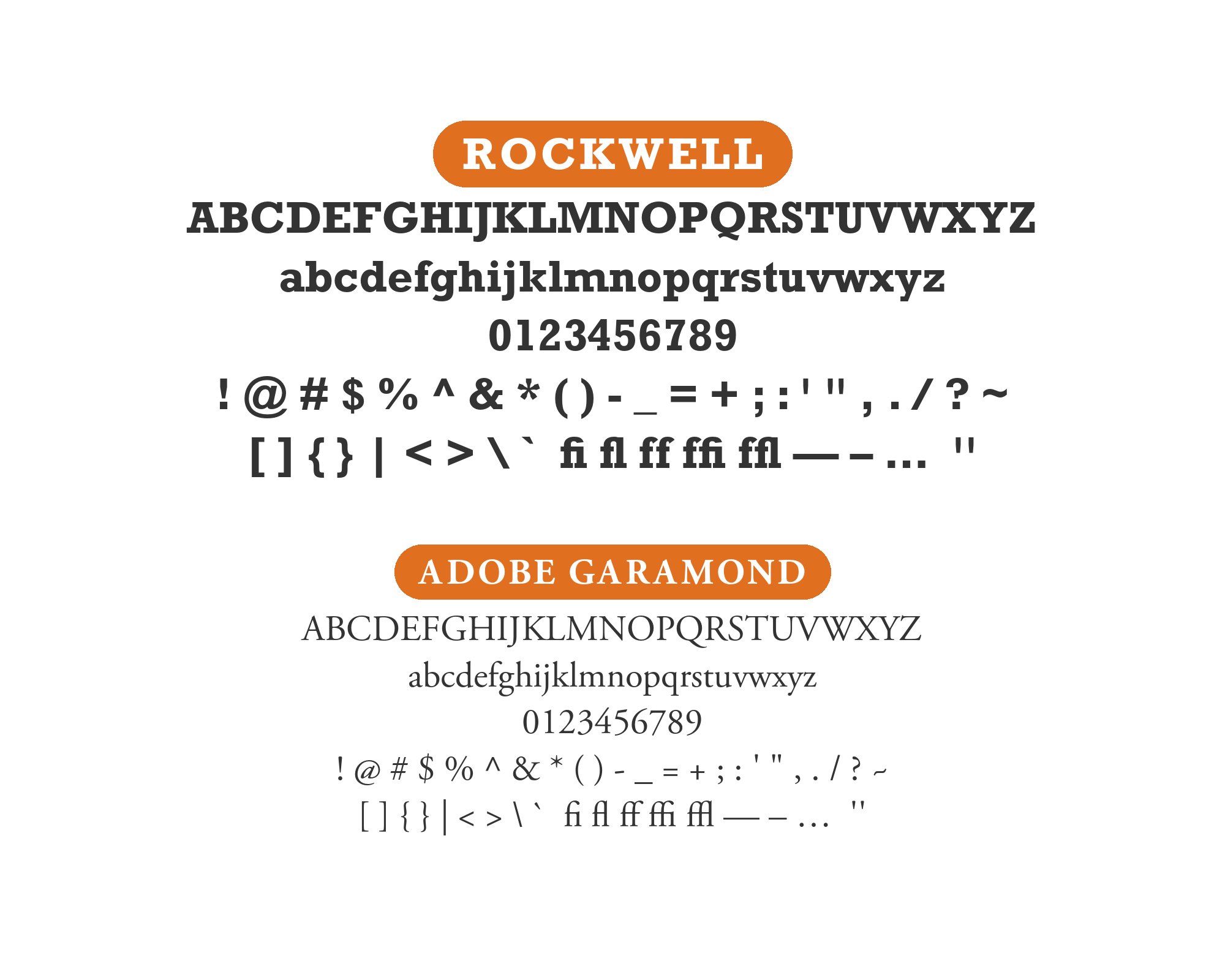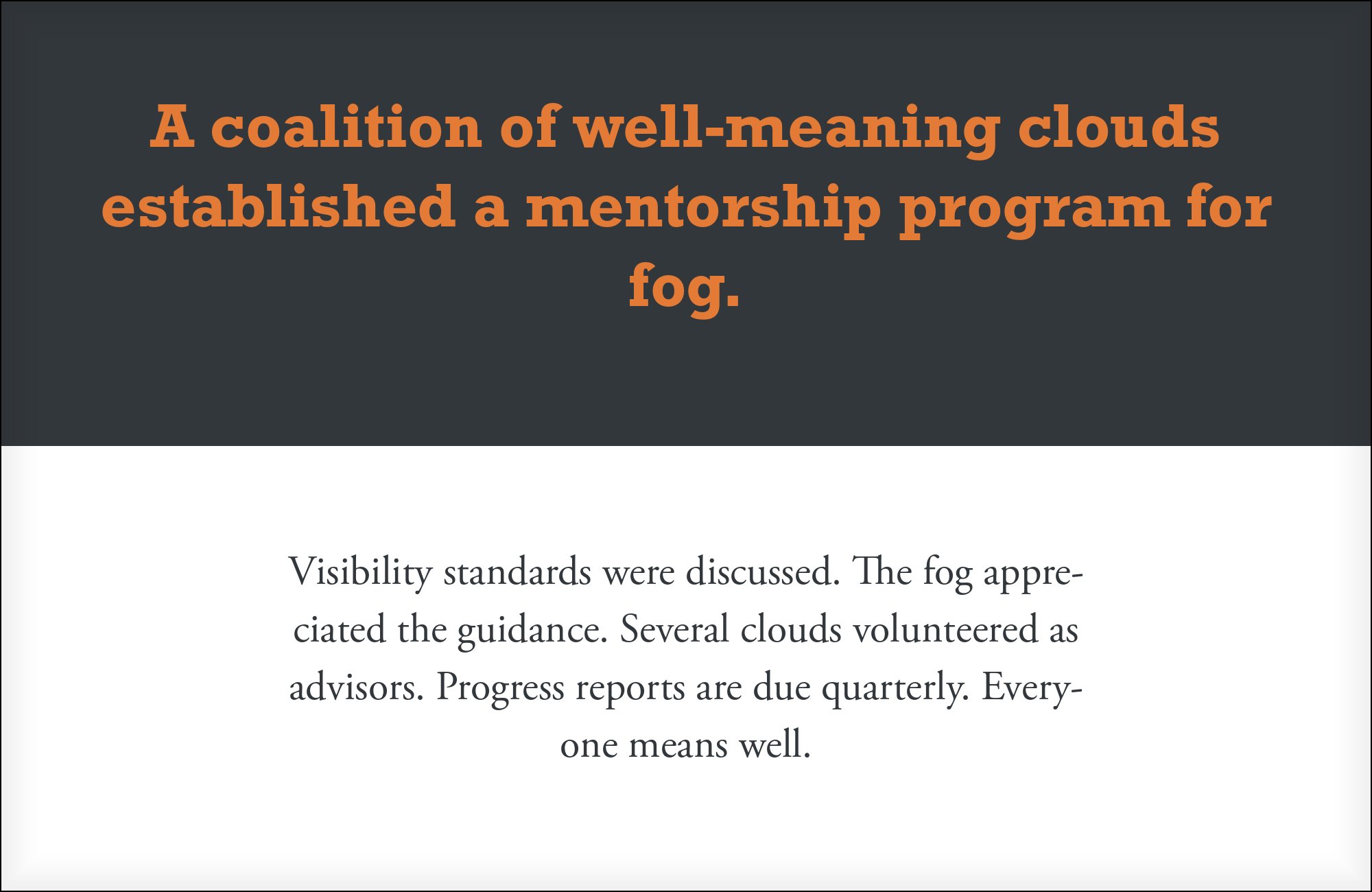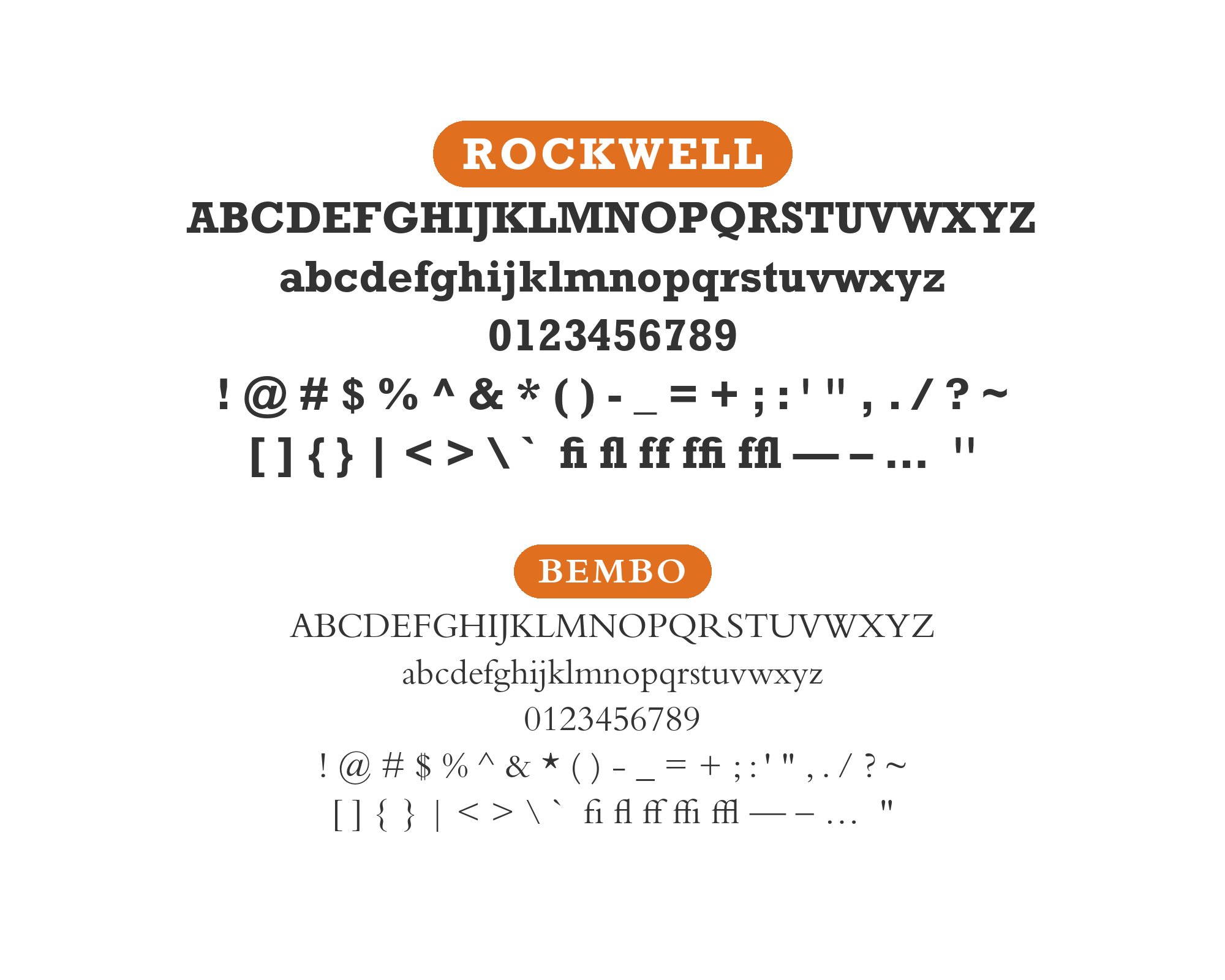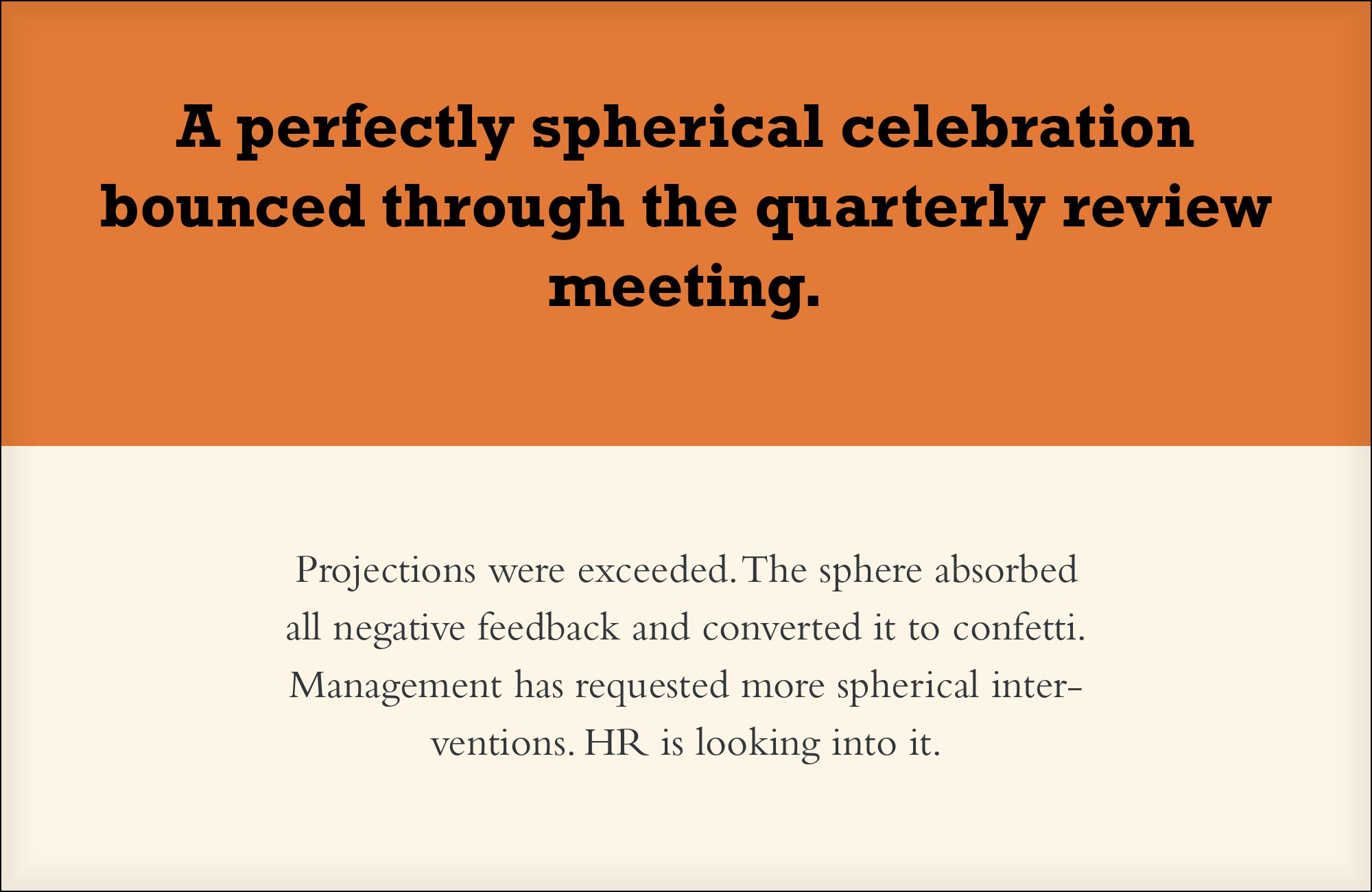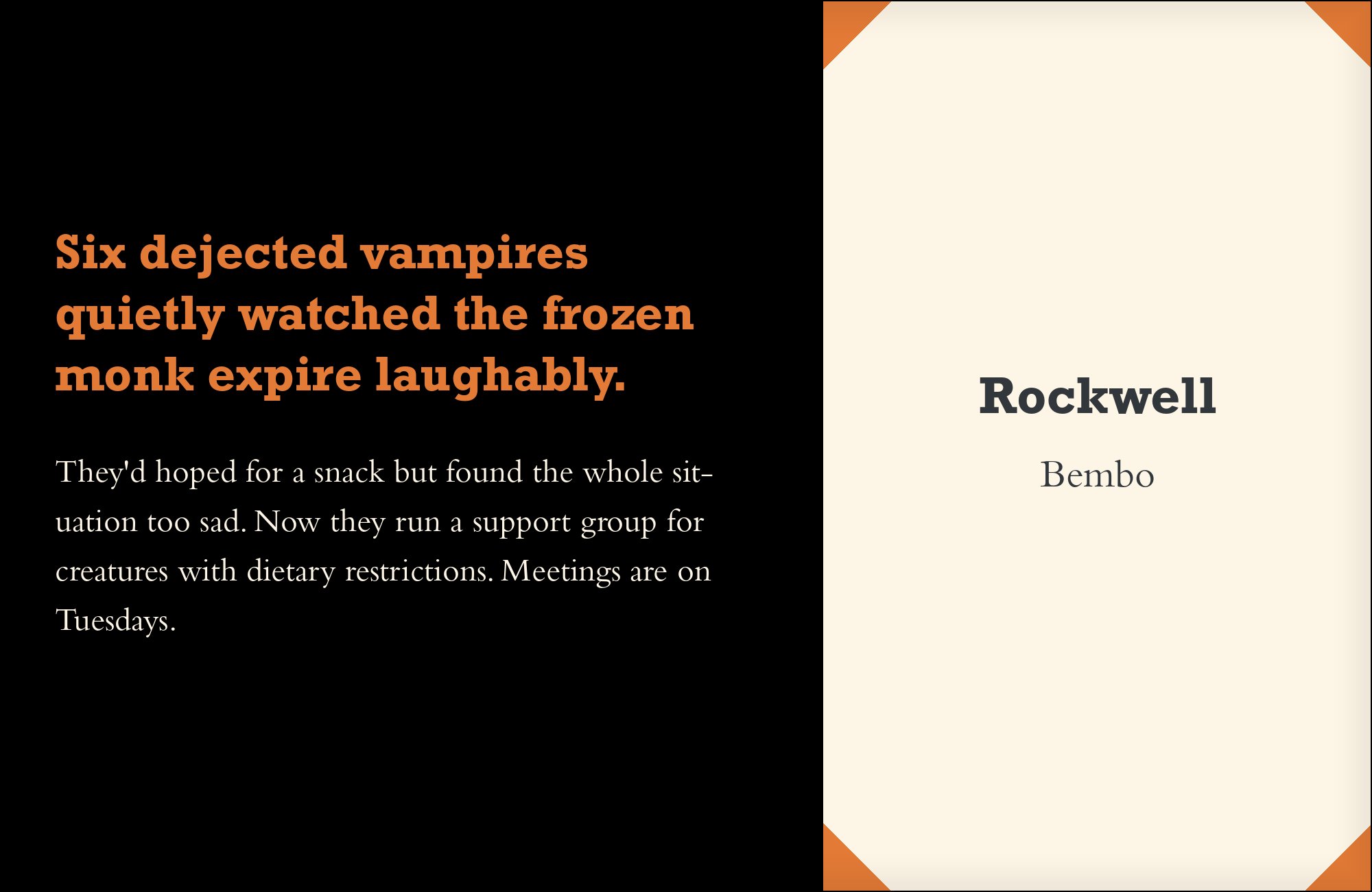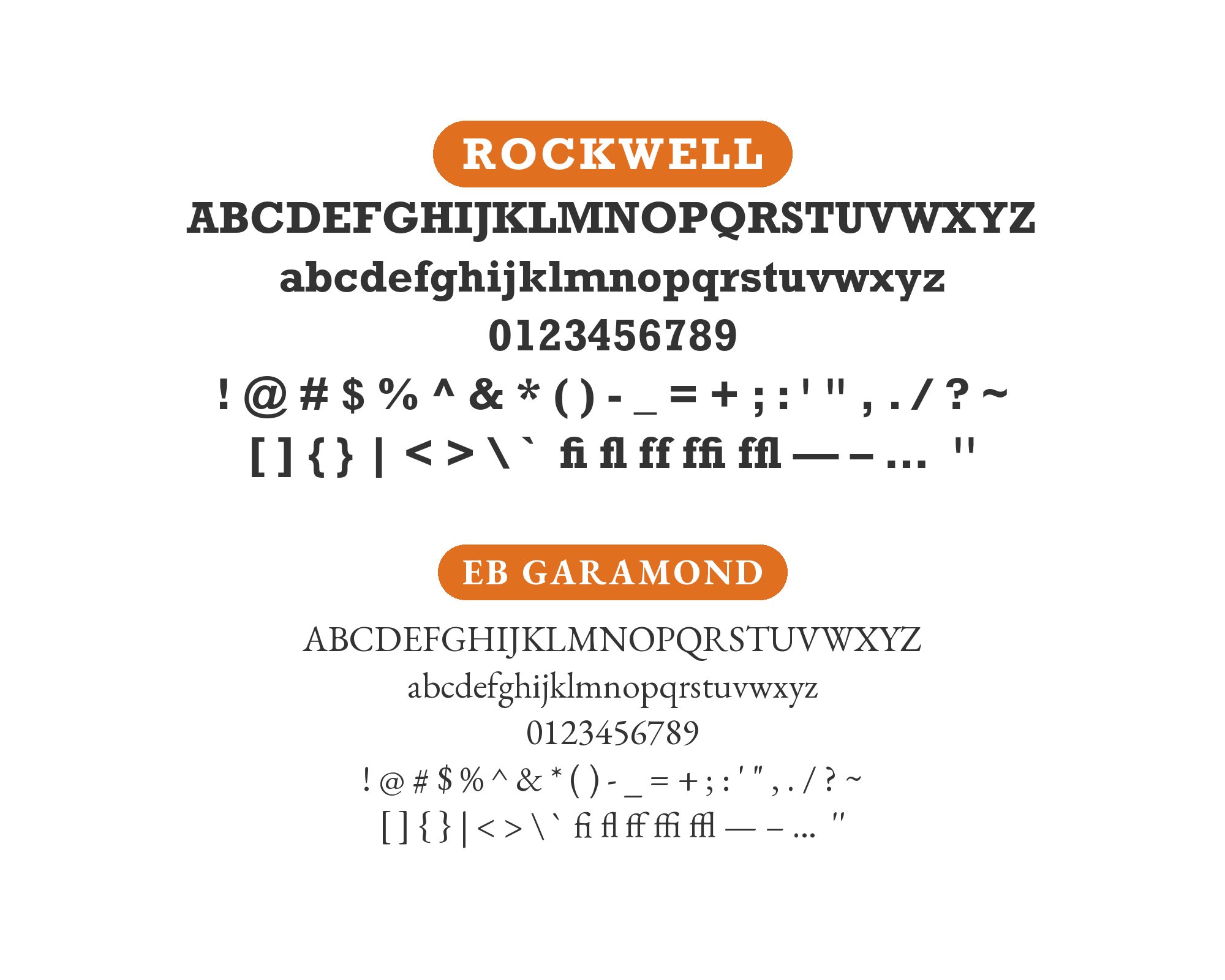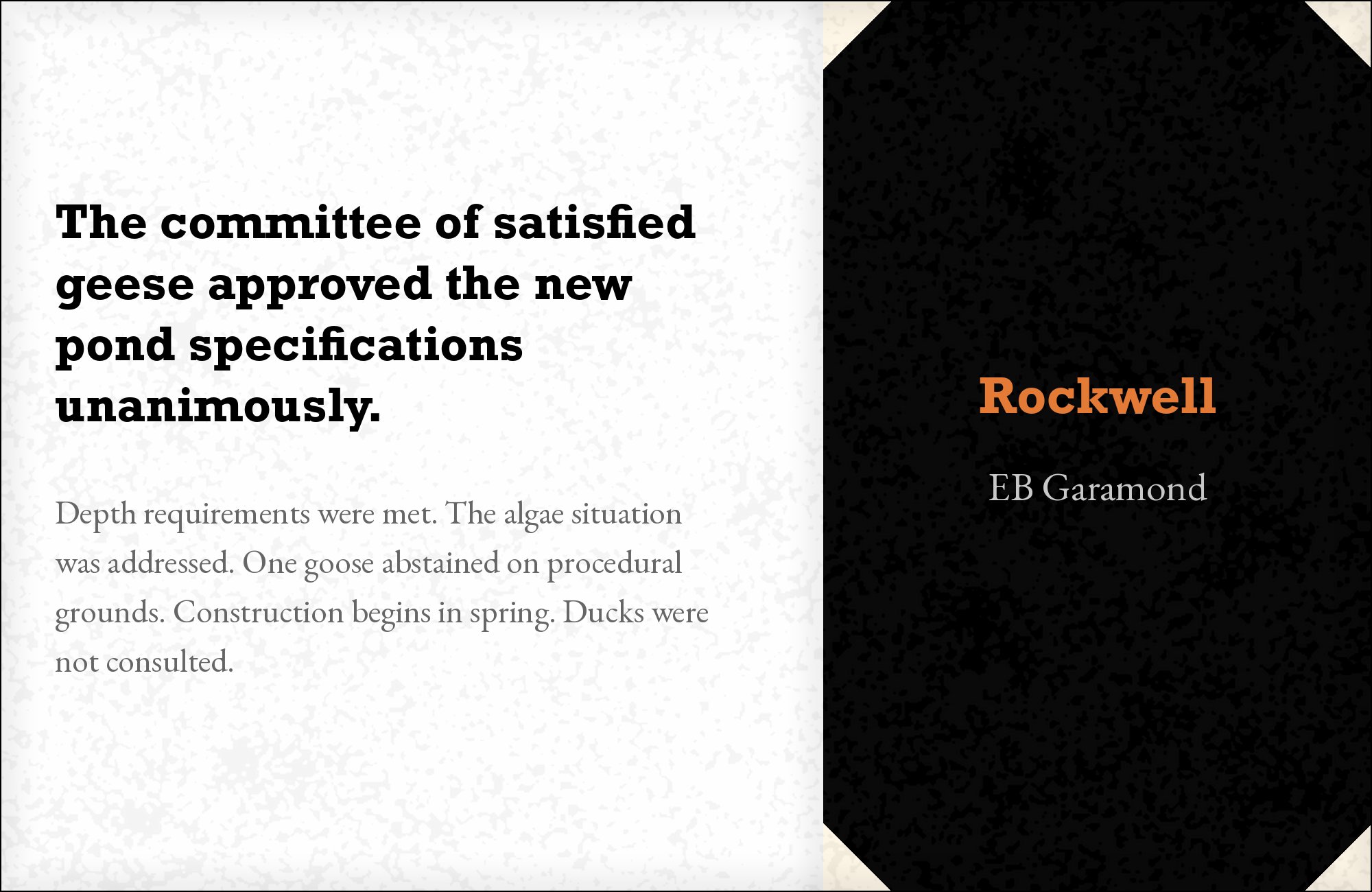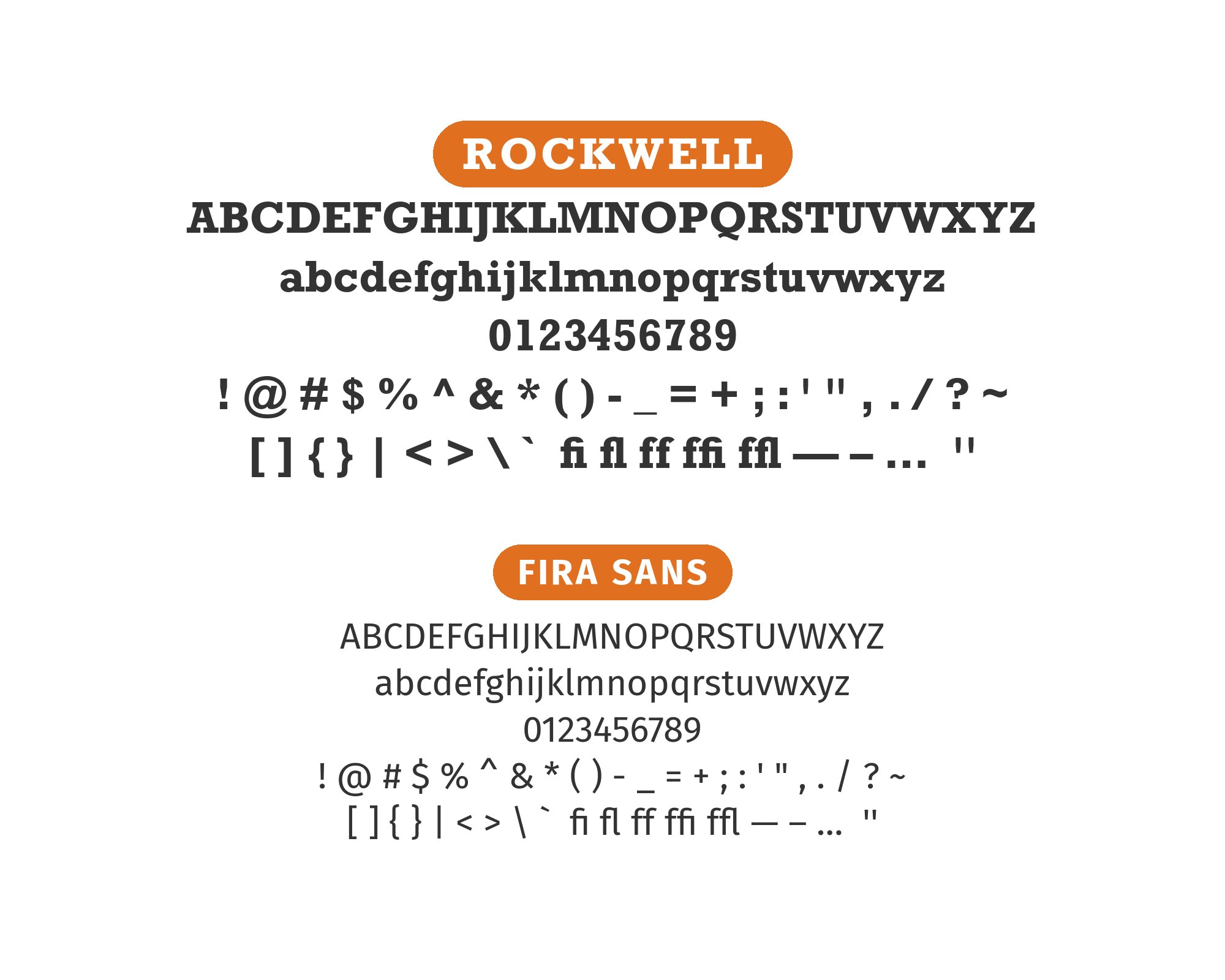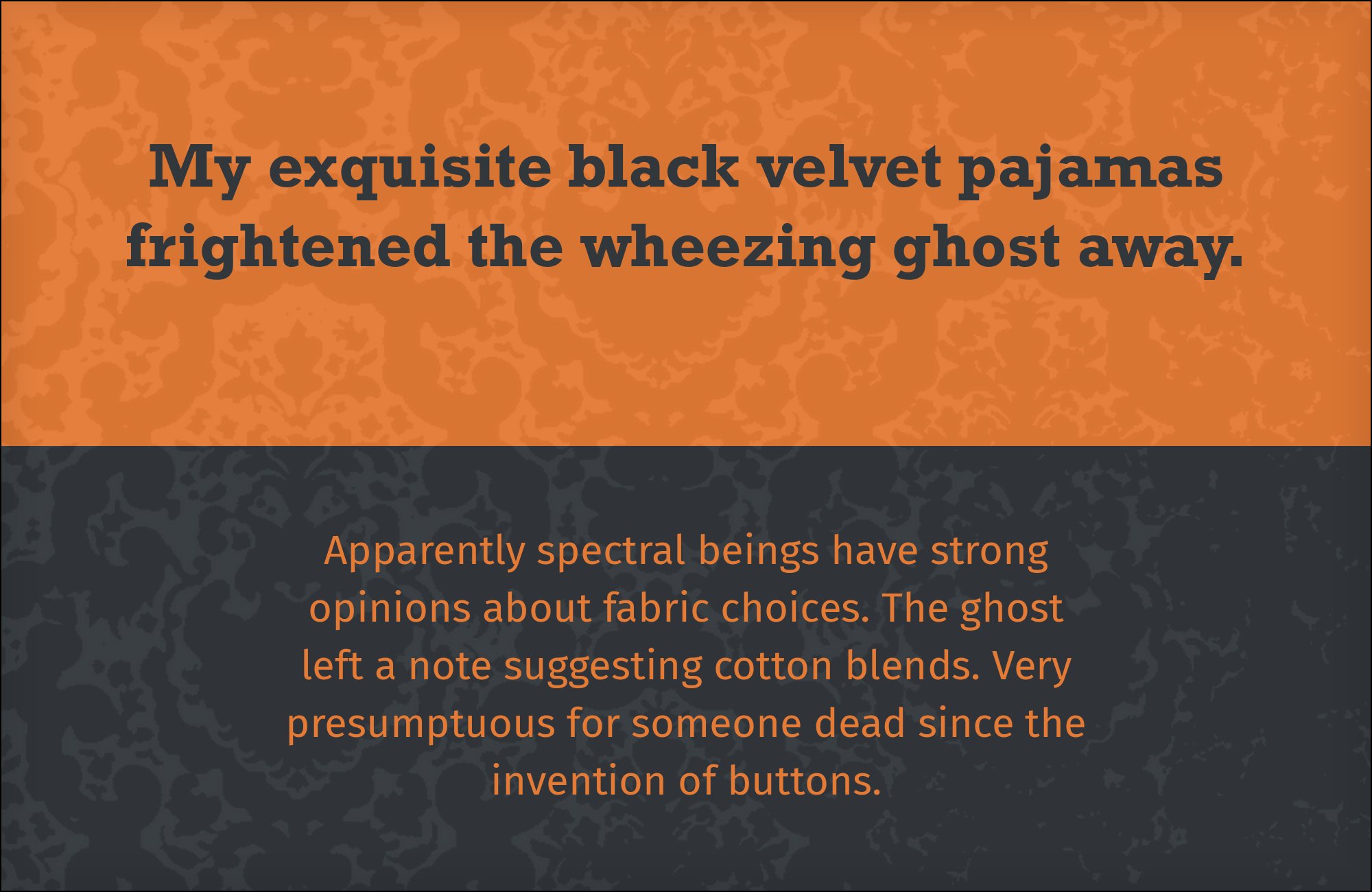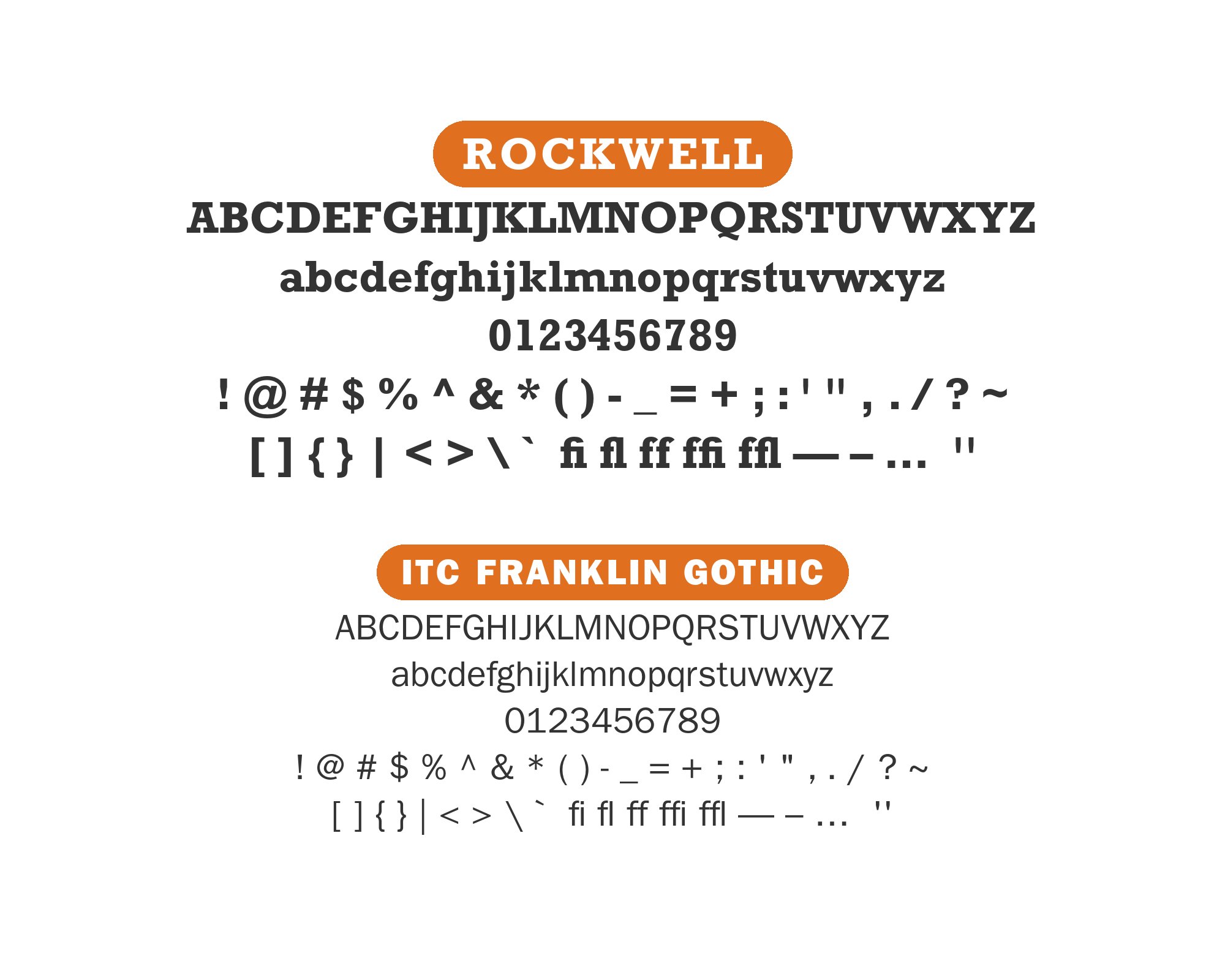
Rockwell pairs great with Poppins, PT Serif and Helvetica Neue. All 11 pairings are shown below in real rendered specimens, with the reason each one works.
What fonts go with Rockwell? 11 pairings are shown below, each with a reason it works.
Rockwell is a working typeface, not a novelty. Five of the combinations below come from published sources or real sites; the rest are close free alternatives to fonts those sources name. Here are 11 fonts that pair well with Rockwell.
1. Poppins
Poppins is a geometric sans built from near-perfect circles, with a monoline stroke and tall x-height; set beside Rockwell’s geometric slab, the shared circular skeleton reads as related forms in different registers — display slab up top, even geometric sans for supporting text.
PT Serif is a calm, screen-tuned transitional serif with moderate contrast — it recedes into long-form text while Rockwell’s monoweight slabs take the headlines and callouts.
3. Helvetica Neue
Helvetica Neue is the default neutral grotesque — set under Rockwell it supplies UI labels and captions without competing for attention, letting the slab serif stay the page’s single loud voice.
MyFonts pairs Rockwell’s squared slab serifs with Franklin Gothic’s blunt grotesque strokes — both faces read as confident and American-industrial, so headline and subhead share the same attitude instead of one undercutting the other.
5. Source Serif 4
Source Serif 4’s transitional, Fournier-inspired forms give it a warmth Rockwell’s mechanical slab doesn’t have on its own; set as body copy under Rockwell’s geometric display weight, it takes the edge off the slab’s rigidity without fighting for attention.
6. Nunito Sans
Nunito Sans trades its sibling Nunito’s fully rounded terminals for a calmer, squared-off finish, giving it just enough warmth to soften Rockwell’s blunt geometry while staying restrained enough for comfortable body text — friendlier tone, same geometric discipline underneath.
7. EB Garamond
EB Garamond’s old-style diagonal stress and bracketed serifs carry a calligraphic warmth that balances Rockwell’s blunt, unbracketed geometry — useful when a brand wants slab-serif confidence up top without the whole page reading as mechanical or industrial.
8. Adobe Garamond
Kittl × Monotype’s cheatsheet sets Rockwell’s blocky, unbracketed forms as the headline and Adobe Garamond’s soft, rhythmically varied old-style curves as body text — the contrast gives the display face “structural weight and typographic authority” while keeping long text comfortable to read.
9. Fira Sans
Fira Sans’s open apertures and even rhythm keep body copy legible at small sizes without competing with Rockwell’s blocky headlines — a humanist sans suited to short headlines, callouts, or UI labels in infographics and UX-heavy layouts where Rockwell never has to carry extended text.
10. Bembo
Rockwell Bold’s blunt, attention-grabbing geometry needs a genuinely quiet partner to avoid a shouting match, and Bembo’s neutral, refined old-style curves do exactly that — a clean hierarchy split between a loud display face and an elegant, get-out-of-the-way text serif.
11. Montserrat
Montserrat’s geometric bowls and uniform stroke weight share enough underlying structure with Rockwell’s compass-drawn slab that the two read as related rather than opposed — serif authority in the headline, geometric-sans cleanliness in UI and supporting text, a common logo-and-interface split.
There are no absolute rules for font pairing, just principles to guide you. The key is contrast—in weight, in style (serif vs. sans-serif), or in personality. Rockwell is versatile enough to play well with many different typefaces.
Trust your eye, experiment freely, and remember that the best pairing is the one that serves your content and audience. Typography should enhance communication, not complicate it.